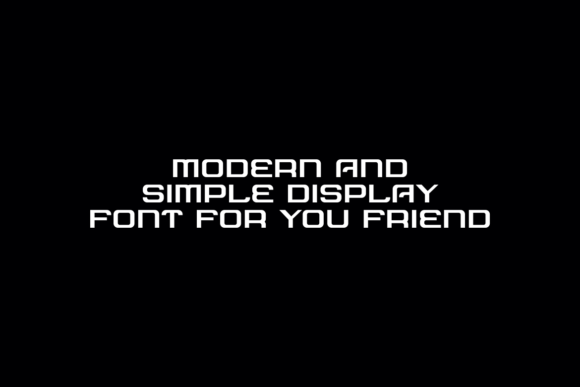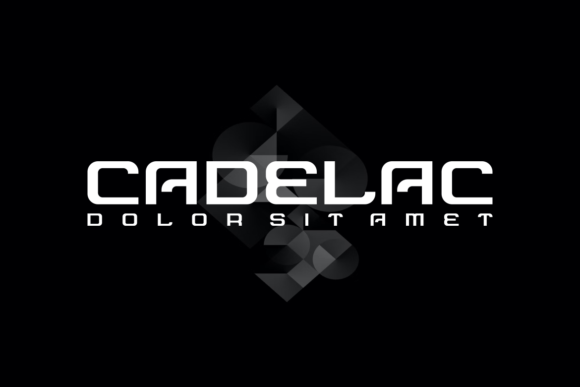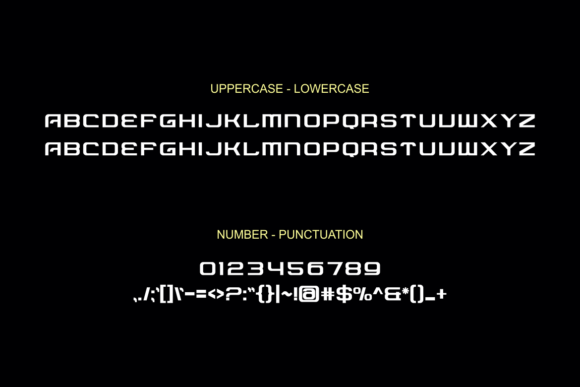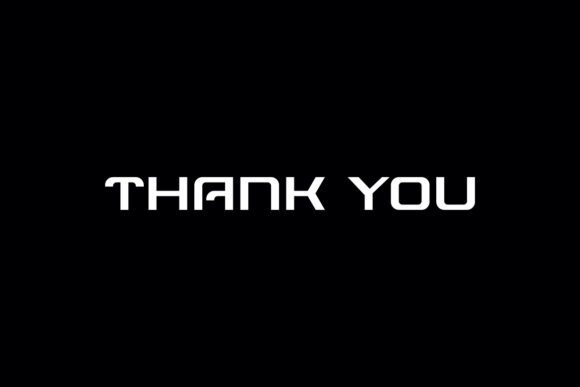
The Cadelac Font: A Modern, Clean Sans-Serif for Your Design Needs
An Honest Review of Cadelac
- ✨ Clean and modern design: Cadelac’s straightforward design makes it easy to read and visually striking.
- ✅ Bold and geometric shapes: Perfect for headlines and eye-catching text.
- 💡 High versatility: Works well for both digital and print designs.
While Cadelac is an excellent font, there are a few things to keep in mind:
- 🤔 Limited font weights: Cadelac currently only offers a few font weights, which might limit its use for body text.
- ⚠️ Glyph support: Some users have reported issues with certain glyphs not displaying correctly.
- Take advantage of OpenType features, such as glyphs and stylistic alternates, to add visual interest to your text.
The Backstory of Cadelac
Cadelac was designed with the goal of creating a clean, modern sans-serif font that would excel in digital and print designs. The designer’s inspiration came from the geometric shapes and clean lines found in modern architecture and industrial design. The result is a font that is both visually striking and highly legible.
| Font Name | Cadelac Font |
| What is Cadelac’s primary use case? | Cadelac is designed for headlines and eye-catching text, making it perfect for titles, headings, and promotional materials. |
| Is Cadelac suitable for body text? | While Cadelac is highly legible, its bold design makes it better suited for headlines and titles. For body text, consider using a font with more moderate contrast and a wider range of font weights. |
| Does Cadelac support OpenType features? | Yes, Cadelac supports OpenType features, including glyphs and stylistic alternates. Take advantage of these features to add visual interest to your text and create unique designs. |
In conclusion, Cadelac is a versatile and visually striking font that can elevate your designs. With its clean, modern sans-serif design and bold, geometric shapes, it’s perfect for headlines and eye-catching text. By understanding its features, limitations, and best use cases, you can unlock the full potential of Cadelac and take your designs to the next level.